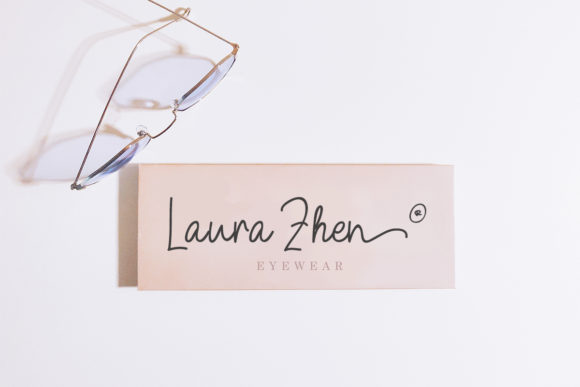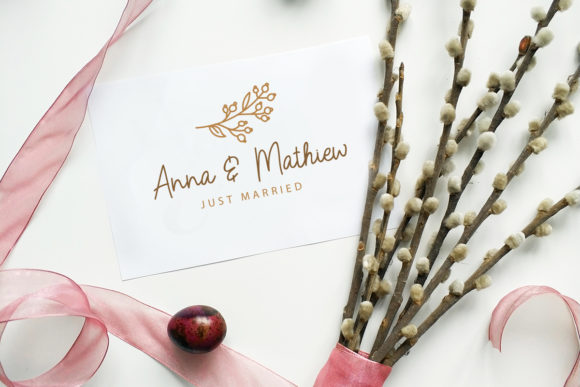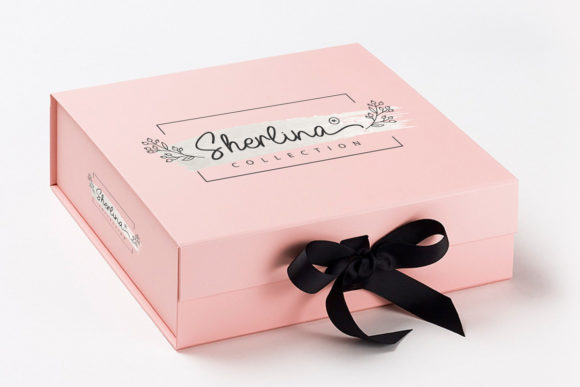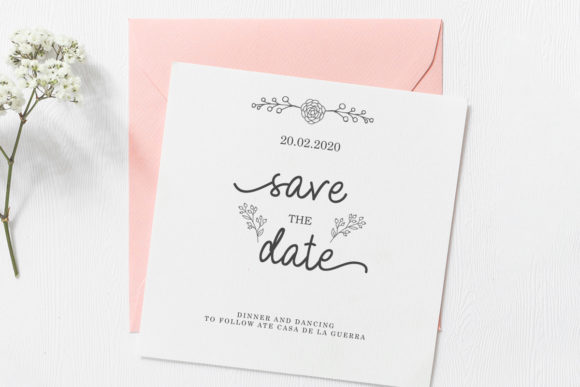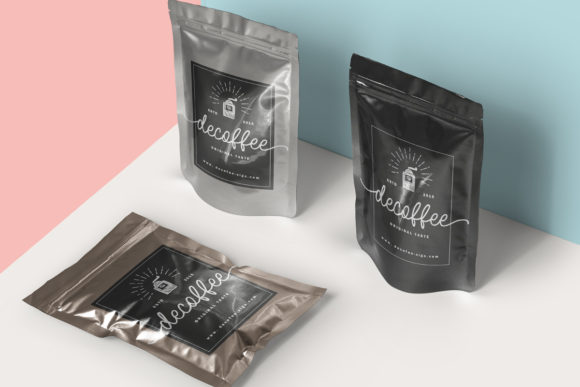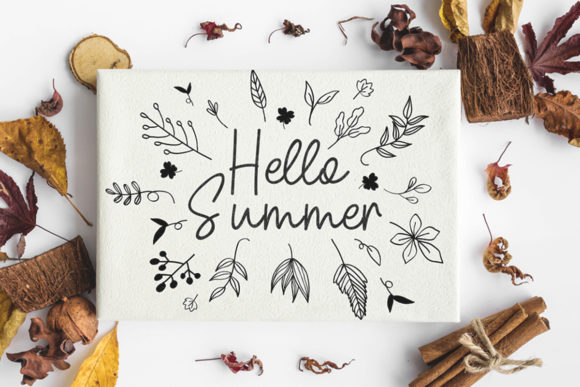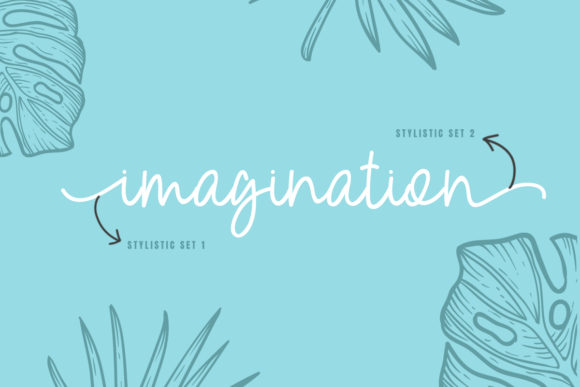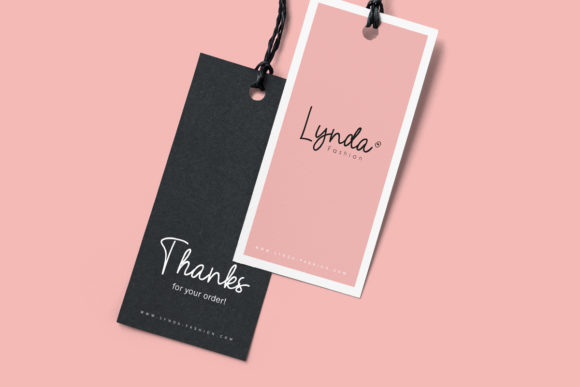
HomeScript FontsAmelia Script Font Script Fonts Amelia Script Font FacebookXPinterestWhatsApp Amelia Script Font Poster 2 Amelia Script Font Poster 3 Amelia Script Font Poster 4 Amelia Script Font Poster 5 Amelia Script Font Poster 6 Amelia Script Font Poster 7 Amelia Script Font Poster 8 Amelia Script Font Poster 9 Amelia Script Font Poster 10 About Amelia Script Font Amelia Script is an equally sweet and authentic script, perfect for elevating any craft idea! DOWNLOAD ON CREATIVE FABRICAThis font is sold and delivered by Creative Fabrica. Font Canyon may earn a commission if you buy through this link. People also explored Lunisolar Malefoy Font Dylan Font Windstar Font Wedding Font Sandwich Font Gilliflower Font Retracula Font Gluey Font 336 0 TagsAmelia Script Font Previous articleJakarta Vise FontNext articleStrawberry Moon Font LEAVE A REPLY Cancel reply Comment: Please enter your comment! Name:* Please enter your name here Email:* You have entered an incorrect email address! Please enter your email address here Website: Save my name, email, and website in this browser for the next time I comment. Personal Use Free The Winter Personal Use Free Read more about this font Degrassi Personal Use Free Read more about this font Vivacious Personal Use Free Read more about this font Cottage Personal Use Free Read more about this font BLOG 5 Fonts That Will Dominate Design Trends in 2026 5 Fonts for 2026 That Will Dominate Design Trends Typography plays a critical role in visual communication, and as we look ahead to 2026, itβs... The 10 Best Handwriting Fonts to Add Personality to Your Designs Elegant Wedding Invitation Fonts β Handwritten & Script Fonts Modern Sans-Serif Fonts That Brands Love in 2025